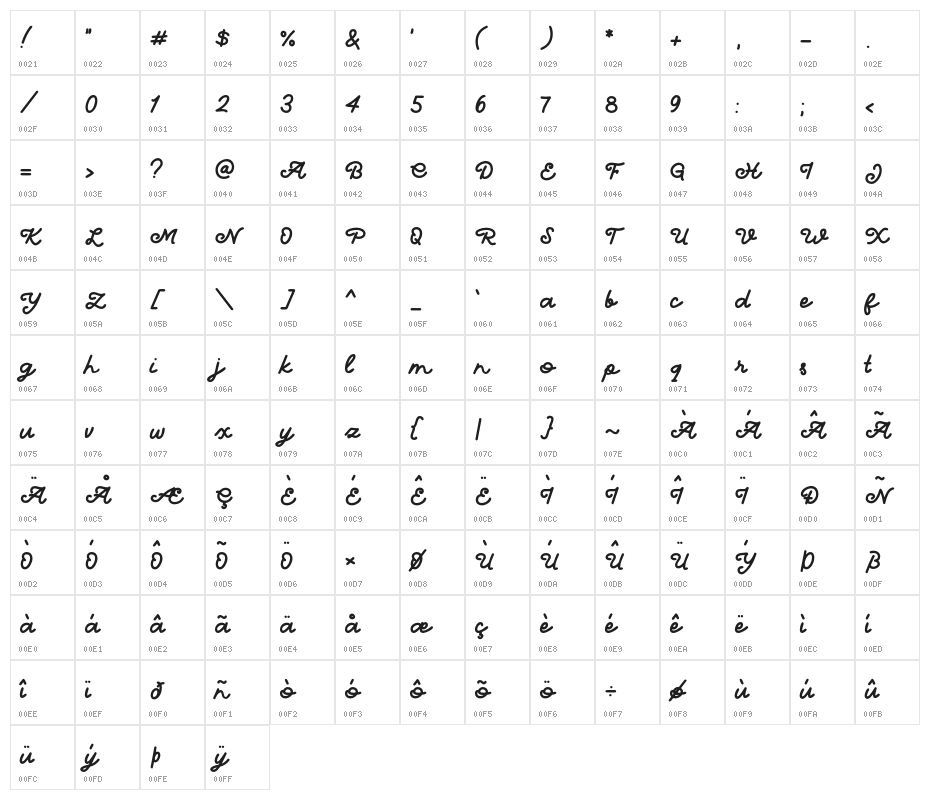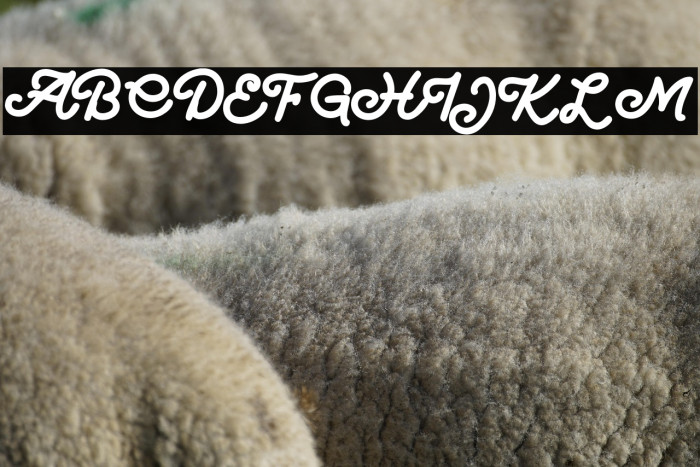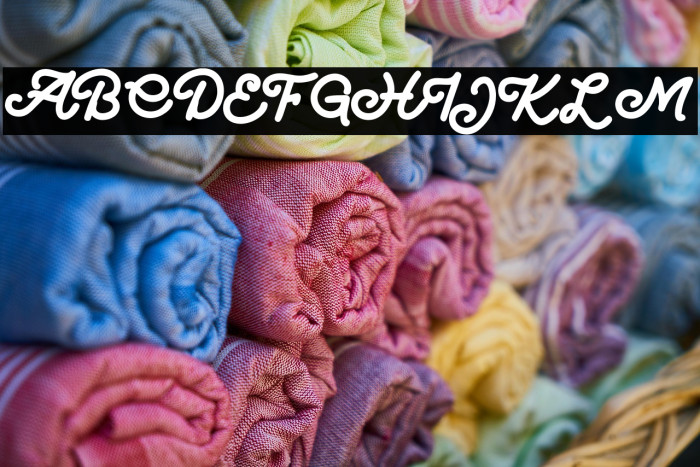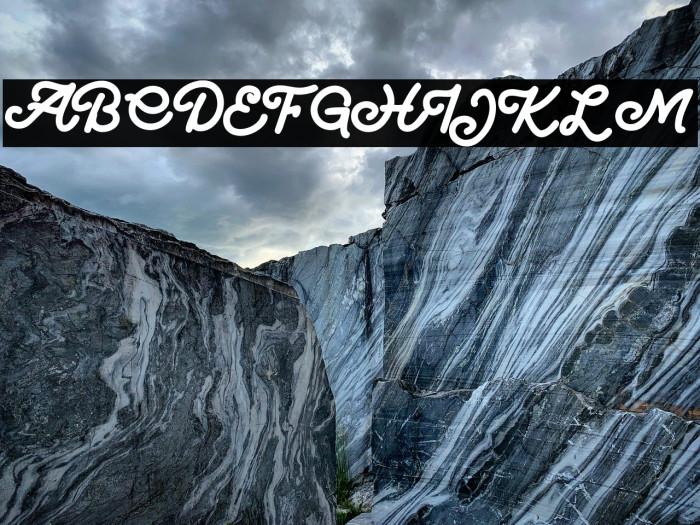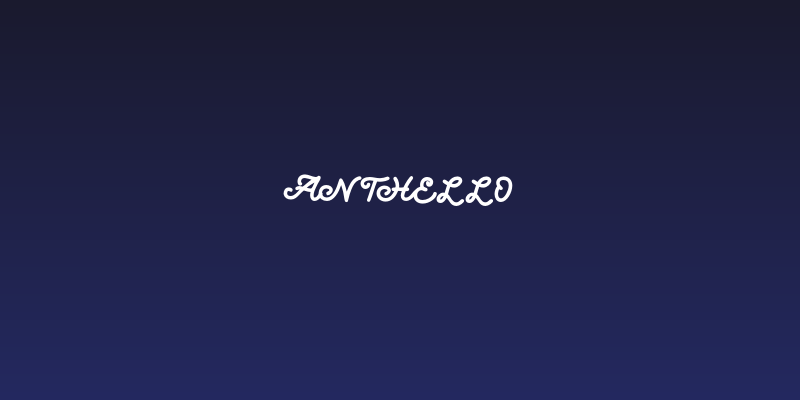
Anthello Font
Anthello Description
This font features a playful and elegant script style, characterized by its fluid, connected strokes that mimic cursive handwriting. The uppercase letters are bold and slightly exaggerated, giving them a distinctive flair, while the lowercase letters maintain a consistent flow with rounded edges and smooth curves. The numerals are clear and legible, matching the overall style with a touch of whimsy. Special characters are well-integrated, maintaining the font's cohesive appearance. This font's design is both charming and sophisticated, making it suitable for a variety of creative applications.
| Use Case | Logos, Headlines, Invitations |
| Proposed Projects | Ideal for wedding invitations, greeting cards, branding projects, and social media graphics. |